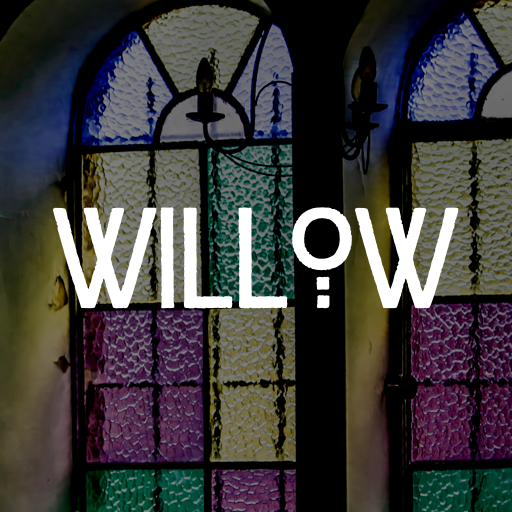
Willow Itc Font
Willow Itc Font - Web willow font revives the look of the arts and crafts of the late 19th and early 20th centuries. Itc willow was designed by tony forster in 1990. Web looking for itc willow fonts? Every font is free to download! Click to find the best 1 free fonts in the itc willow style. Willow font was designed by tony forster, a fanciful font in the viennese secessionist style. The work of scottish architect. Web willow font was designed by tony forster, a fanciful font in the viennese secessionist style.
Willow font was designed by tony forster, a fanciful font in the viennese secessionist style. Web looking for itc willow fonts? The work of scottish architect. Web willow font was designed by tony forster, a fanciful font in the viennese secessionist style. Itc willow was designed by tony forster in 1990. Web willow font revives the look of the arts and crafts of the late 19th and early 20th centuries. Click to find the best 1 free fonts in the itc willow style. Every font is free to download!
Willow font was designed by tony forster, a fanciful font in the viennese secessionist style. Web willow font revives the look of the arts and crafts of the late 19th and early 20th centuries. Web willow font was designed by tony forster, a fanciful font in the viennese secessionist style. The work of scottish architect. Every font is free to download! Click to find the best 1 free fonts in the itc willow style. Web looking for itc willow fonts? Itc willow was designed by tony forster in 1990.
The work of scottish architect. Itc willow was designed by tony forster in 1990. Web willow font was designed by tony forster, a fanciful font in the viennese secessionist style. Willow font was designed by tony forster, a fanciful font in the viennese secessionist style. Click to find the best 1 free fonts in the itc willow style.
Web willow font revives the look of the arts and crafts of the late 19th and early 20th centuries. The work of scottish architect. Web looking for itc willow fonts? Willow font was designed by tony forster, a fanciful font in the viennese secessionist style. Itc willow was designed by tony forster in 1990.
Itc willow was designed by tony forster in 1990. Click to find the best 1 free fonts in the itc willow style. The work of scottish architect. Every font is free to download! Web willow font revives the look of the arts and crafts of the late 19th and early 20th centuries.
Web willow font revives the look of the arts and crafts of the late 19th and early 20th centuries. Web looking for itc willow fonts? Web willow font was designed by tony forster, a fanciful font in the viennese secessionist style. Click to find the best 1 free fonts in the itc willow style. Itc willow was designed by tony.
The work of scottish architect. Click to find the best 1 free fonts in the itc willow style. Itc willow was designed by tony forster in 1990. Web willow font was designed by tony forster, a fanciful font in the viennese secessionist style. Web looking for itc willow fonts?
Every font is free to download! Web looking for itc willow fonts? Willow font was designed by tony forster, a fanciful font in the viennese secessionist style. Web willow font revives the look of the arts and crafts of the late 19th and early 20th centuries. The work of scottish architect.
Willow font was designed by tony forster, a fanciful font in the viennese secessionist style. Web willow font was designed by tony forster, a fanciful font in the viennese secessionist style. Web looking for itc willow fonts? The work of scottish architect. Every font is free to download!
Web willow font was designed by tony forster, a fanciful font in the viennese secessionist style. Click to find the best 1 free fonts in the itc willow style. The work of scottish architect. Web looking for itc willow fonts? Itc willow was designed by tony forster in 1990.
Web willow font revives the look of the arts and crafts of the late 19th and early 20th centuries. Itc willow was designed by tony forster in 1990. Willow font was designed by tony forster, a fanciful font in the viennese secessionist style. Every font is free to download! The work of scottish architect.
Itc willow was designed by tony forster in 1990. Web willow font was designed by tony forster, a fanciful font in the viennese secessionist style. Web looking for itc willow fonts? Web willow font revives the look of the arts and crafts of the late 19th and early 20th centuries. Willow font was designed by tony forster, a fanciful font.
Web Willow Font Was Designed By Tony Forster, A Fanciful Font In The Viennese Secessionist Style.
Every font is free to download! The work of scottish architect. Click to find the best 1 free fonts in the itc willow style. Willow font was designed by tony forster, a fanciful font in the viennese secessionist style.
Web Willow Font Revives The Look Of The Arts And Crafts Of The Late 19Th And Early 20Th Centuries.
Web looking for itc willow fonts? Itc willow was designed by tony forster in 1990.